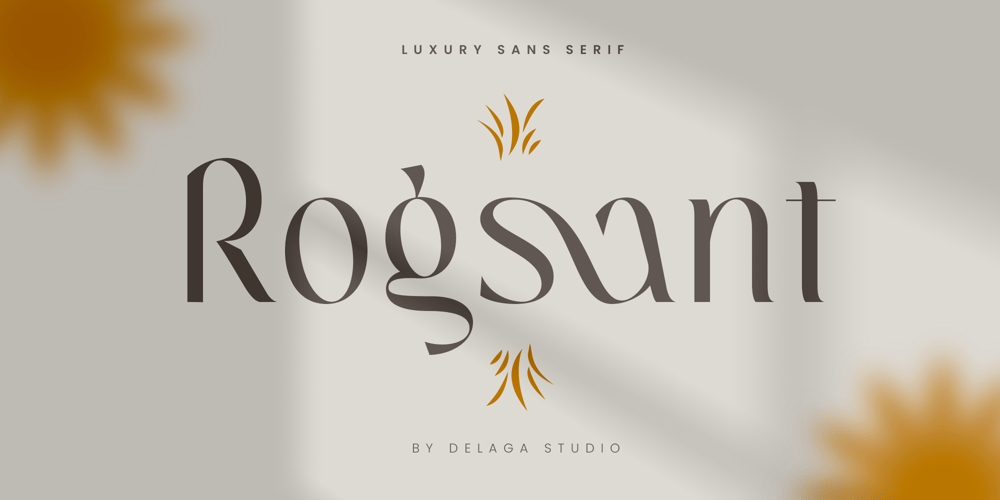
Rogsant Font Family was designed by Faris Mu’afa and published by Delaga Studio. Rogsant contains 1 styles and family package options. Rogsant is a Minimalist Modern Elegant font with beautiful ligatures, tons of special alternative glyphs, ornament, and multilingual support. It’s a very versatile font that works great in large and small sizes. Elegant Rogsant is perfect for branding projects, Logo design, Clothing Branding, product packaging, magazine headers, or simply as a stylish text overlay to any background image.——————————————————————————Features: All caps Stylistic Alternates & Ligatures Numerals & Punctuation Accented characters Multiple Languages Supported HOW TO ACCESS ALTERNATE CHARACTERS PUA Encoded ————————————————————————-Open glyphs panel:In Adobe Photoshop go to Window – glyphsIn Adobe Illustrator go to Type – glyphs———————————————————————————–Follow my shop for upcoming updates including additional glyphs and language support. And please message me if you want your language included or If there are any features or glyph requests, feel free to send me a message, I would like to update it